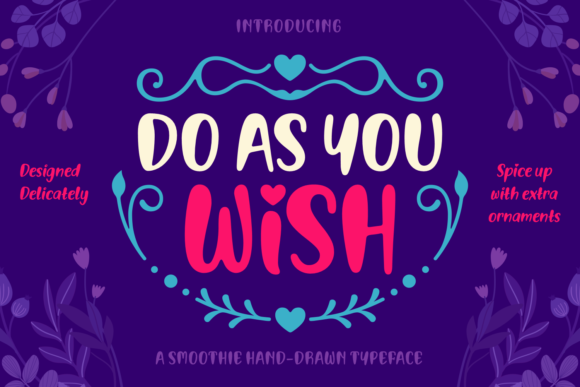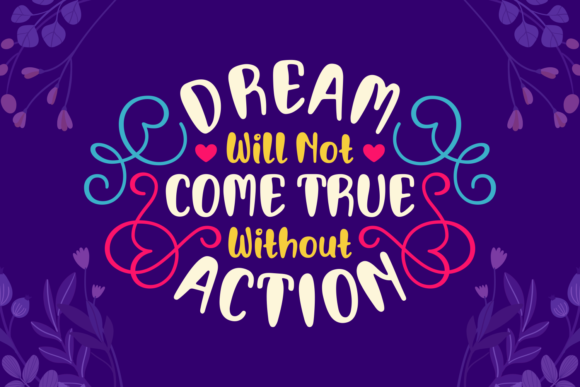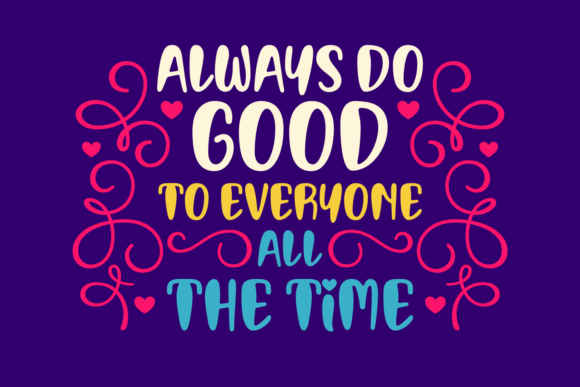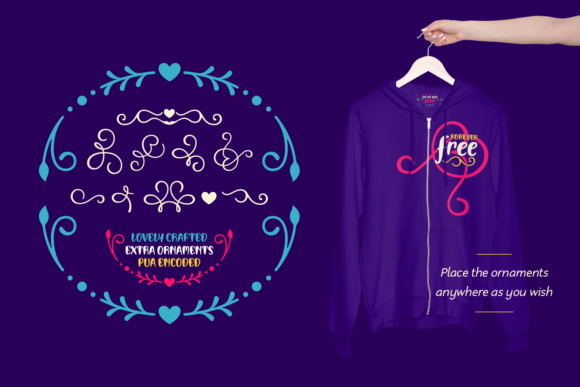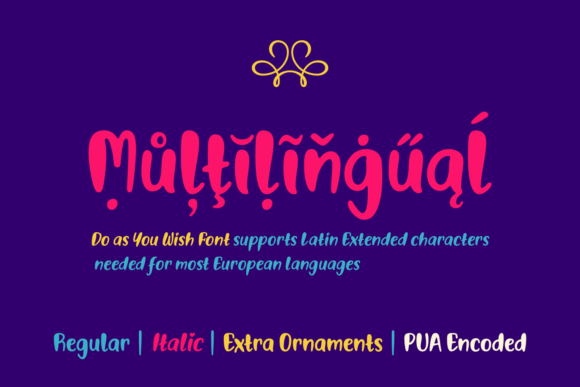
Do As You Wish Font
About Do As You Wish Font
Do As You Wish is a bold handwritten font, carefully handcrafted to become a true favorite. Its casual charm makes it appear wonderfully down-to-earth, readable and, ultimately, incredibly versatile. It will elevate a wide range of design projects to the highest level, be it branding, headings, wedding designs, invitations, signatures, logos, labels, and much more!